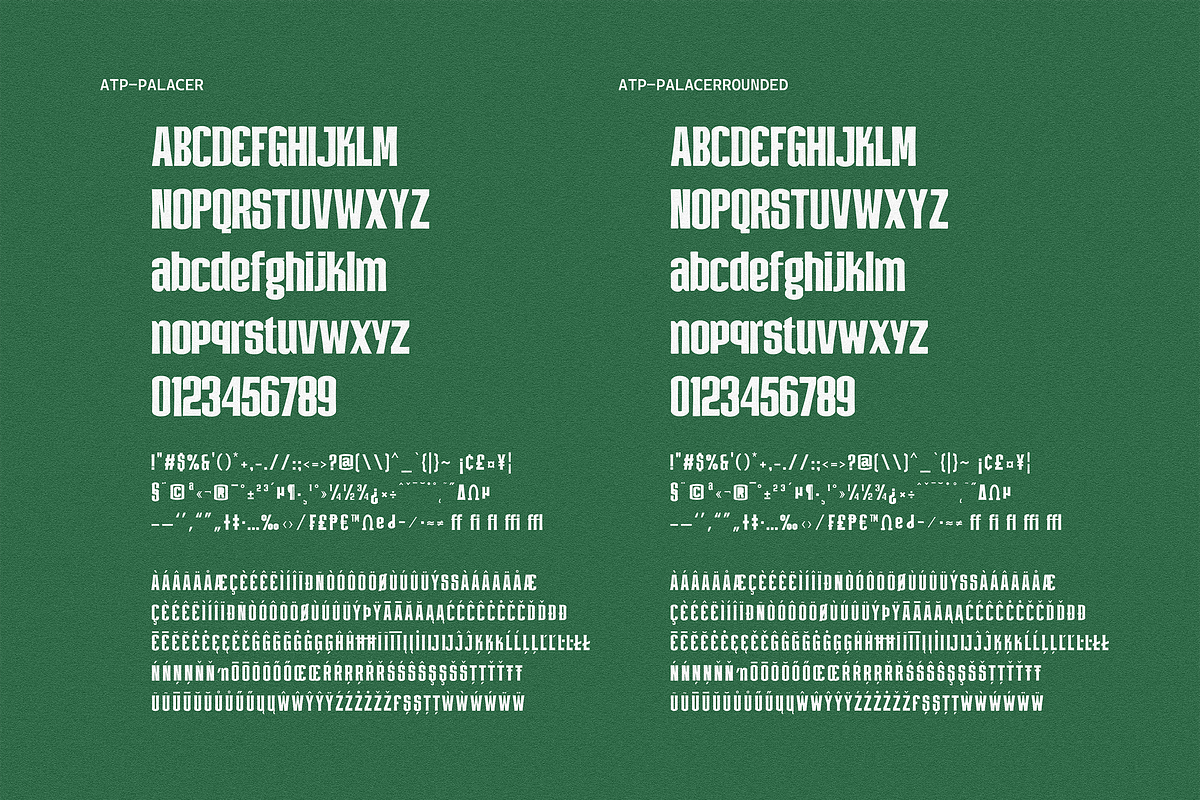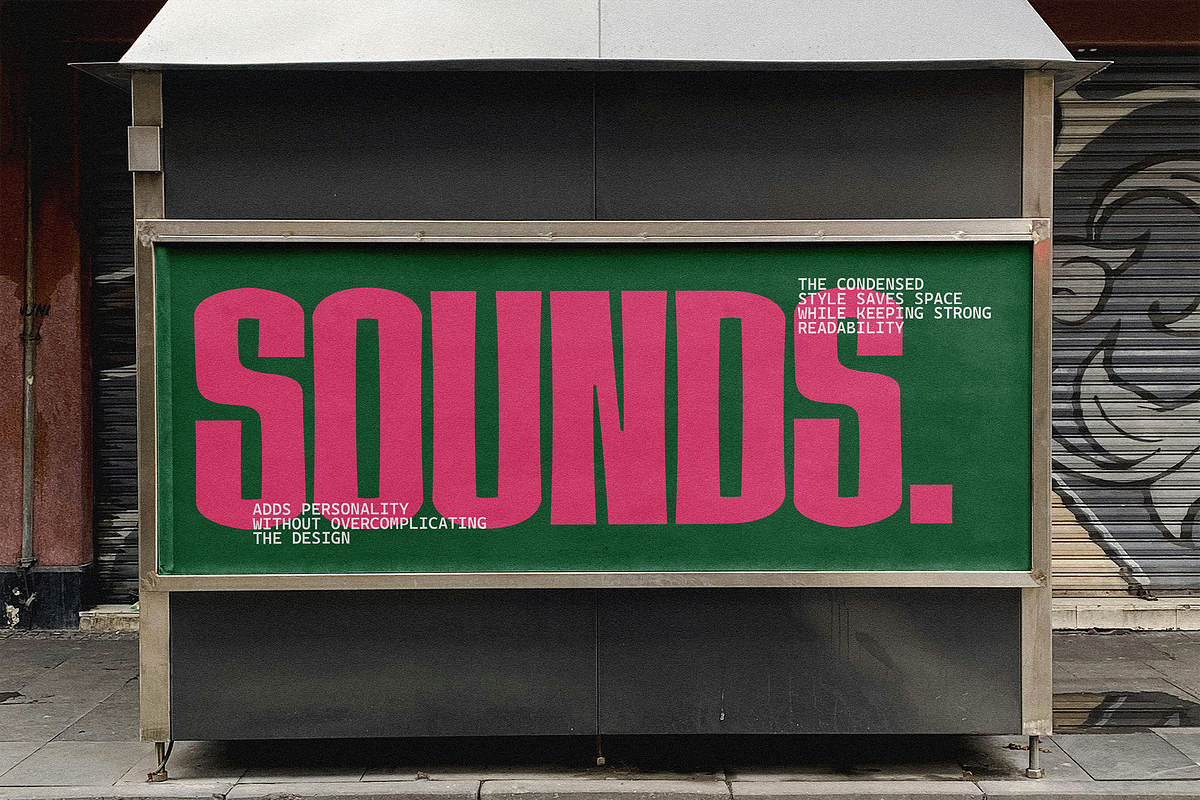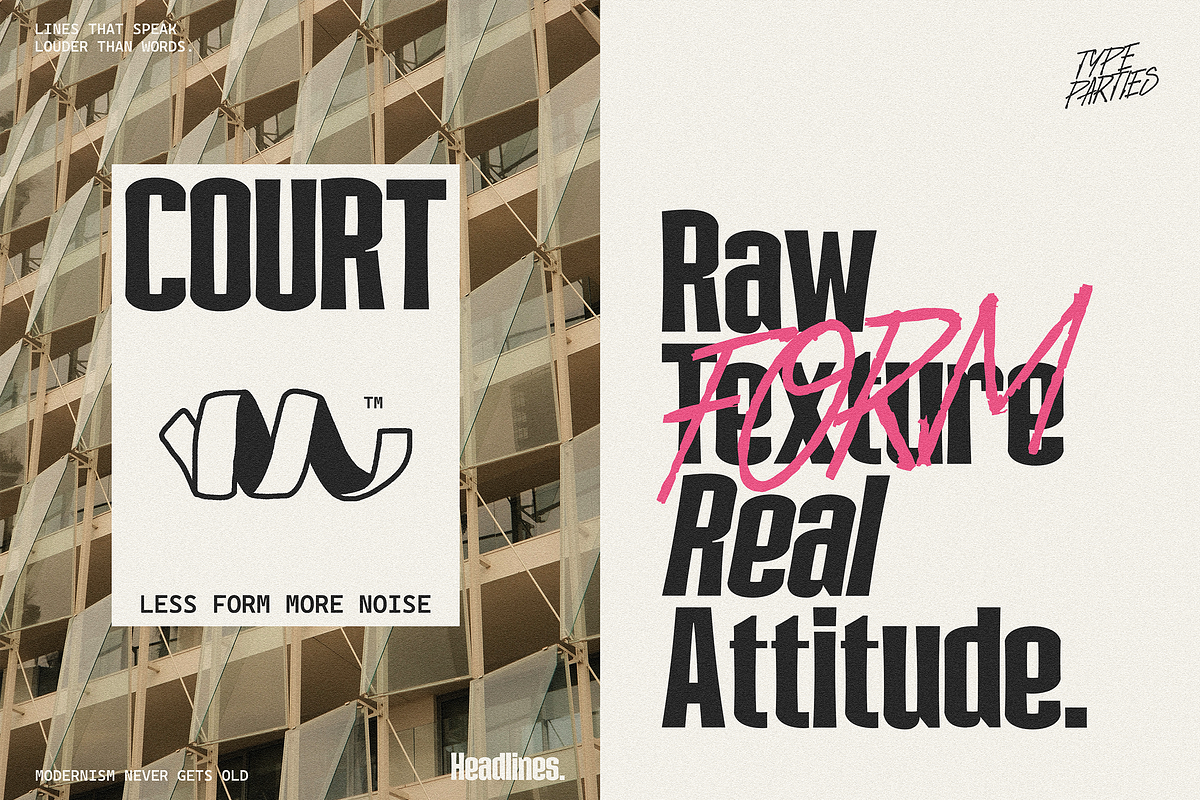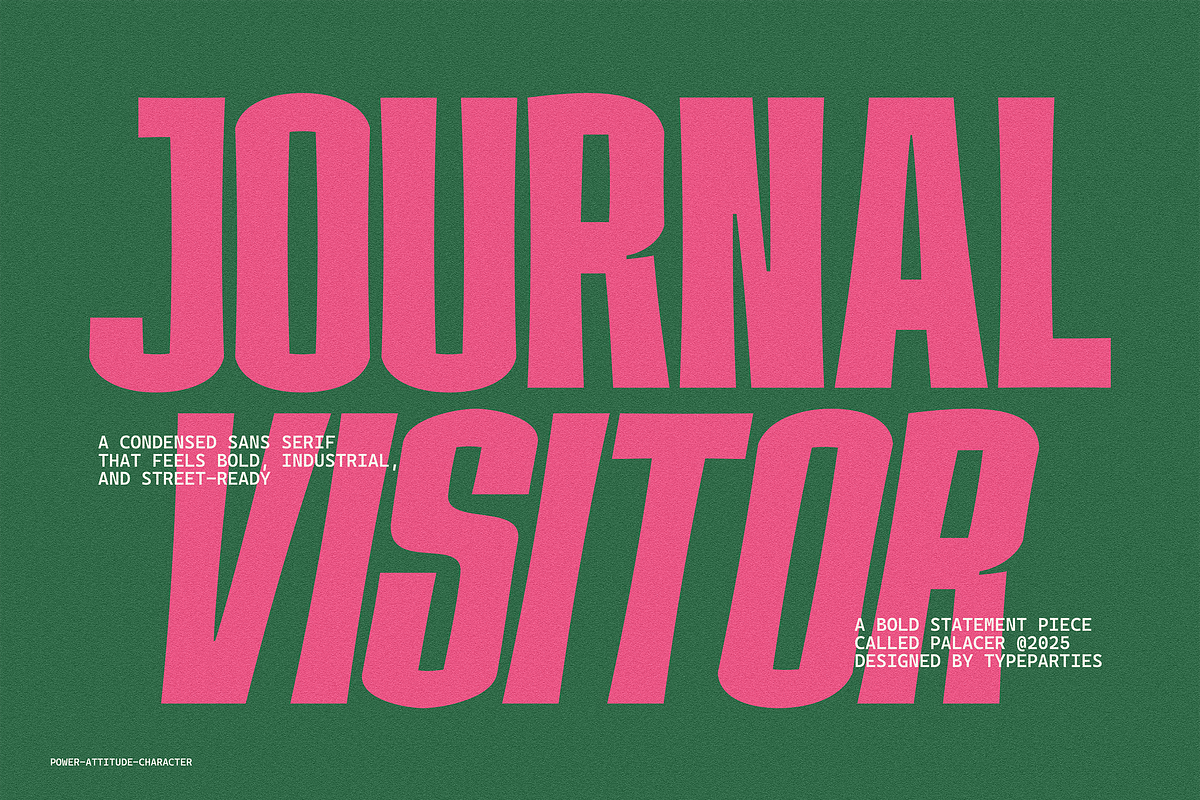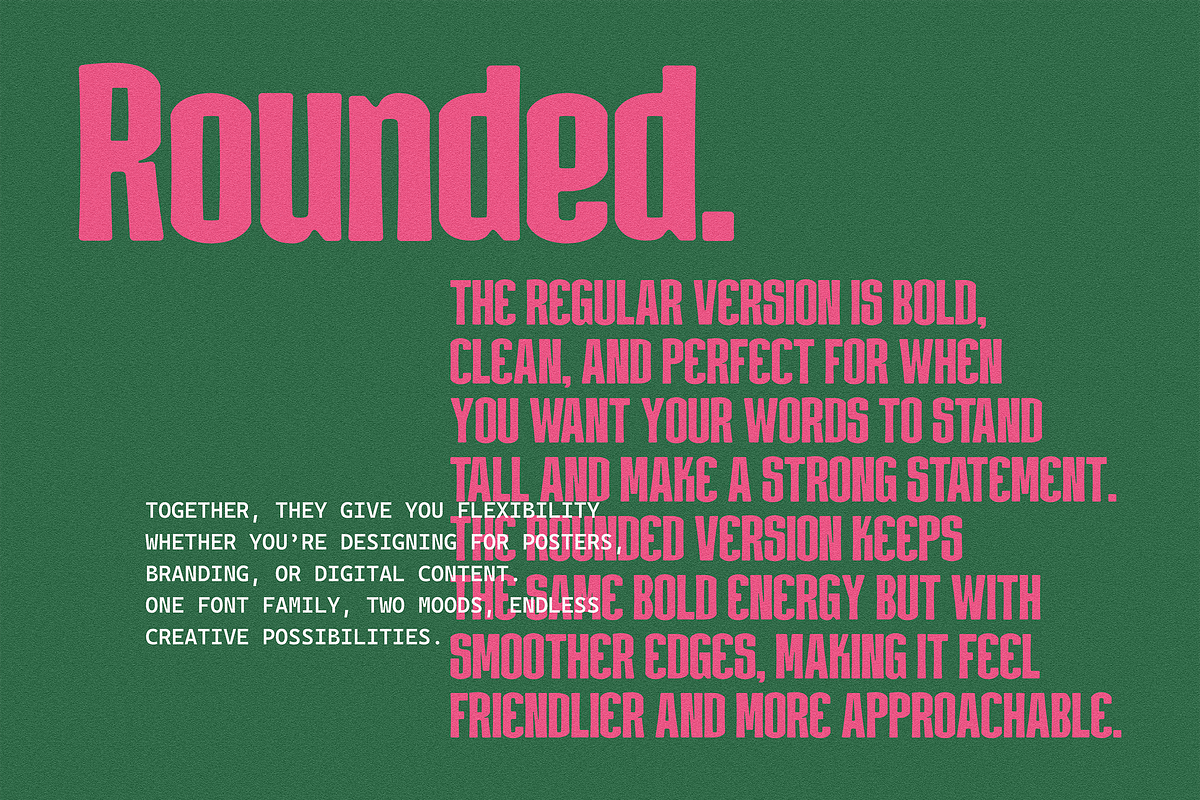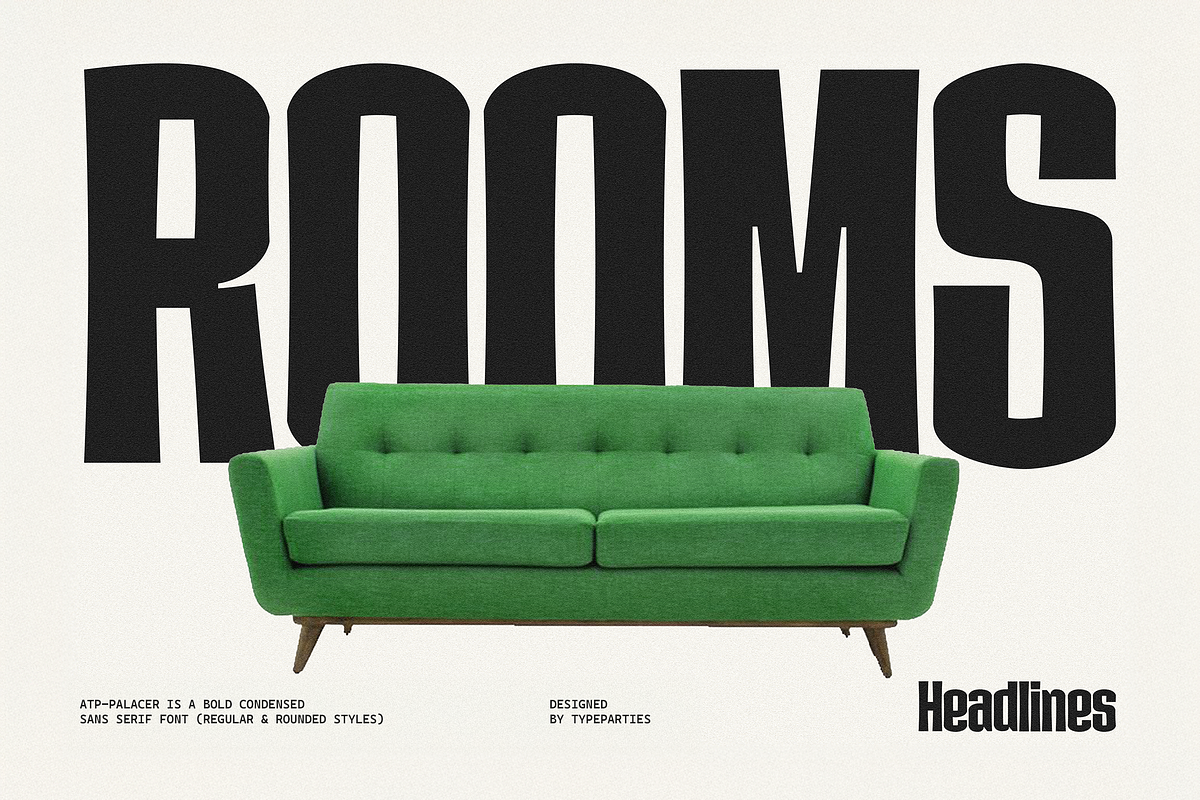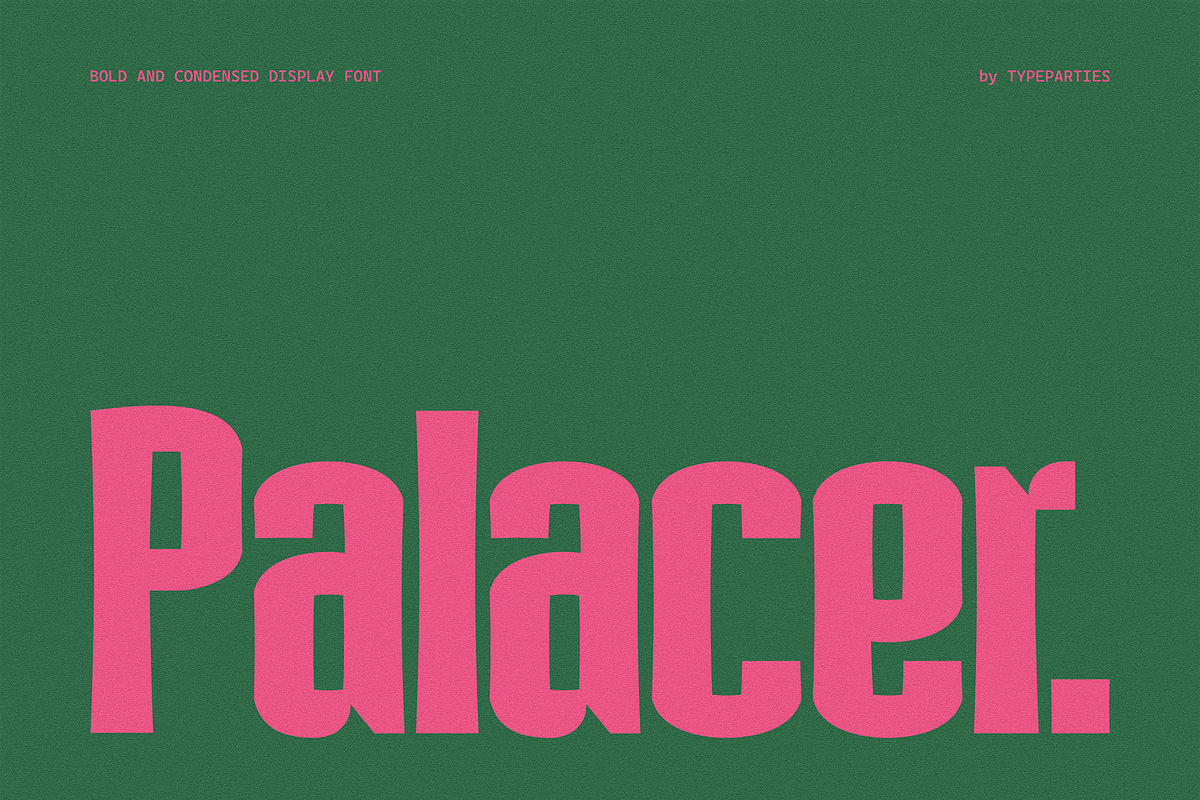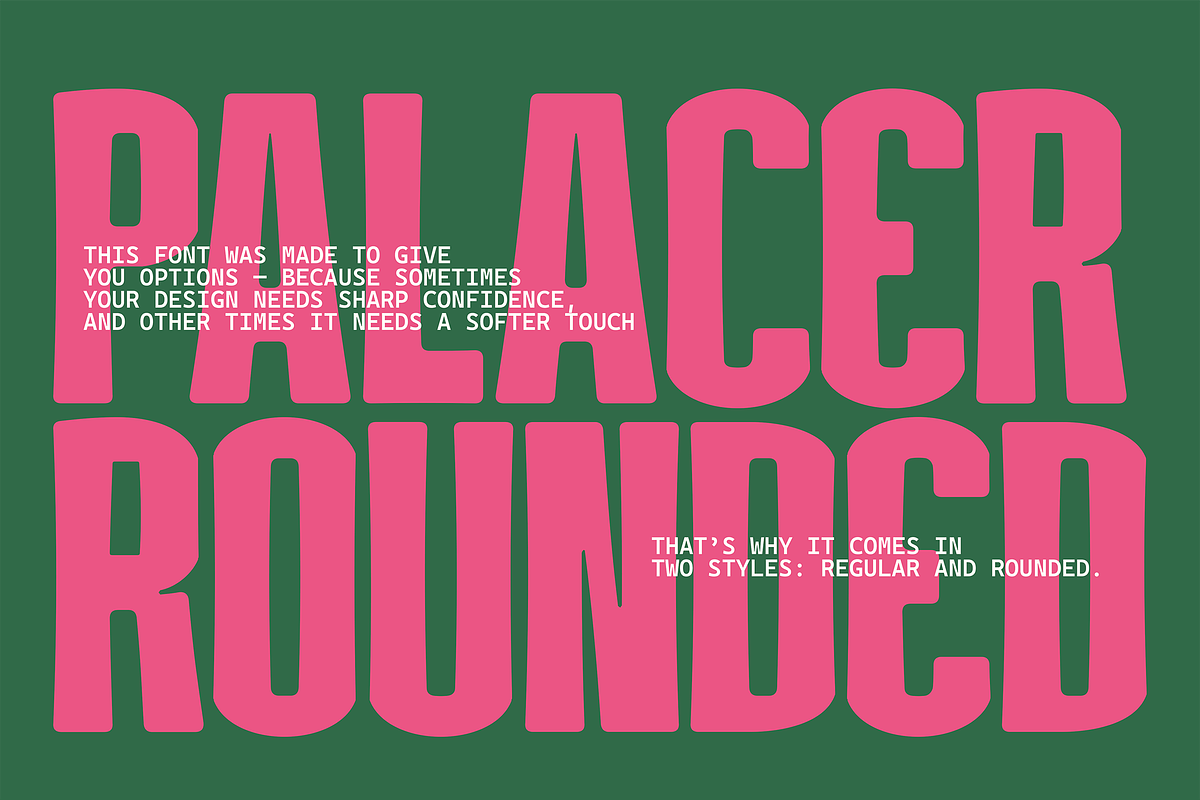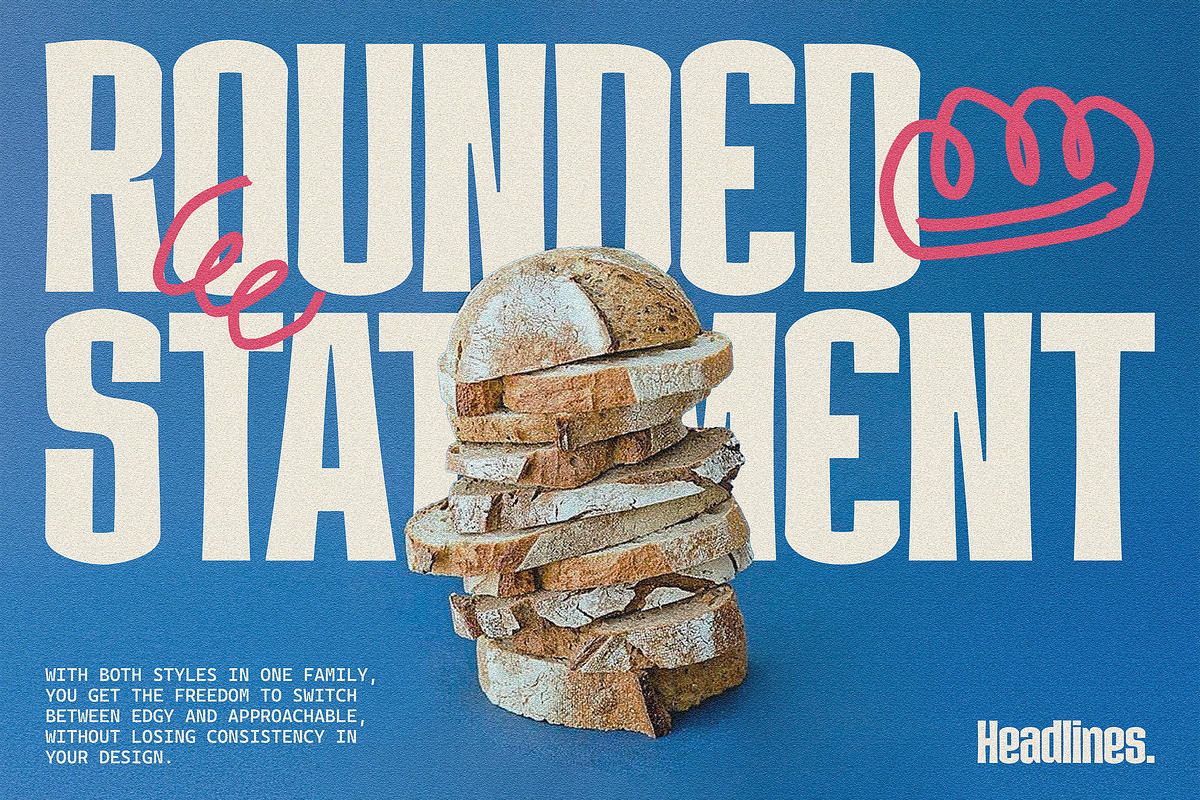
Palacer - Modern Display Font
Palacer is a bold, condensed sans serif typeface designed for maximum impact. With tall letterforms, heavy strokes, and a slightly distressed texture, this font captures the raw energy of vintage industrial design while staying relevant in modern creative work.
This font was made to give you options — because sometimes your design needs sharp confidence, and other times it needs a softer touch. That’s why it comes in two styles: Regular and Rounded.
The Regular version is bold, clean, and perfect for when you want your words to stand tall and make a strong statement. The Rounded version keeps the same bold energy but with smoother edges, making it feel friendlier and more approachable.